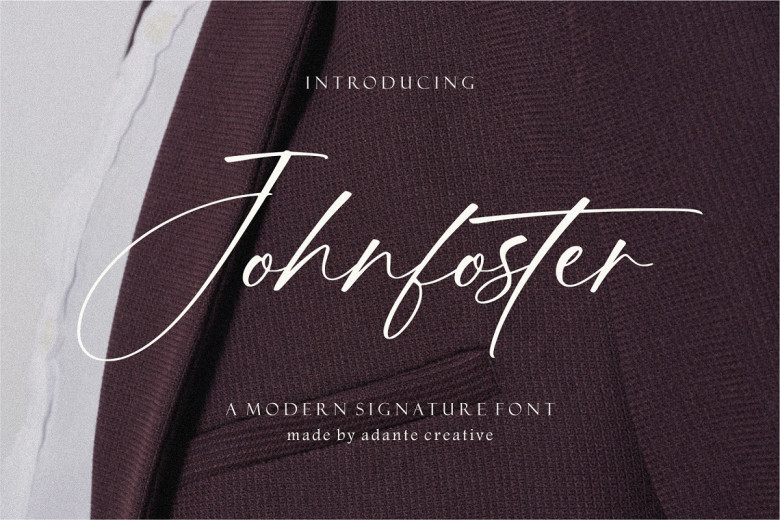
Johnfoster Font
Johnfoster font is an elegant modern and contemporary trademark font perfect for packaging of products, branding projects, magazines wedding invitations and social media content or simply conveying words on any background surface.
Johnfoster Signature Font